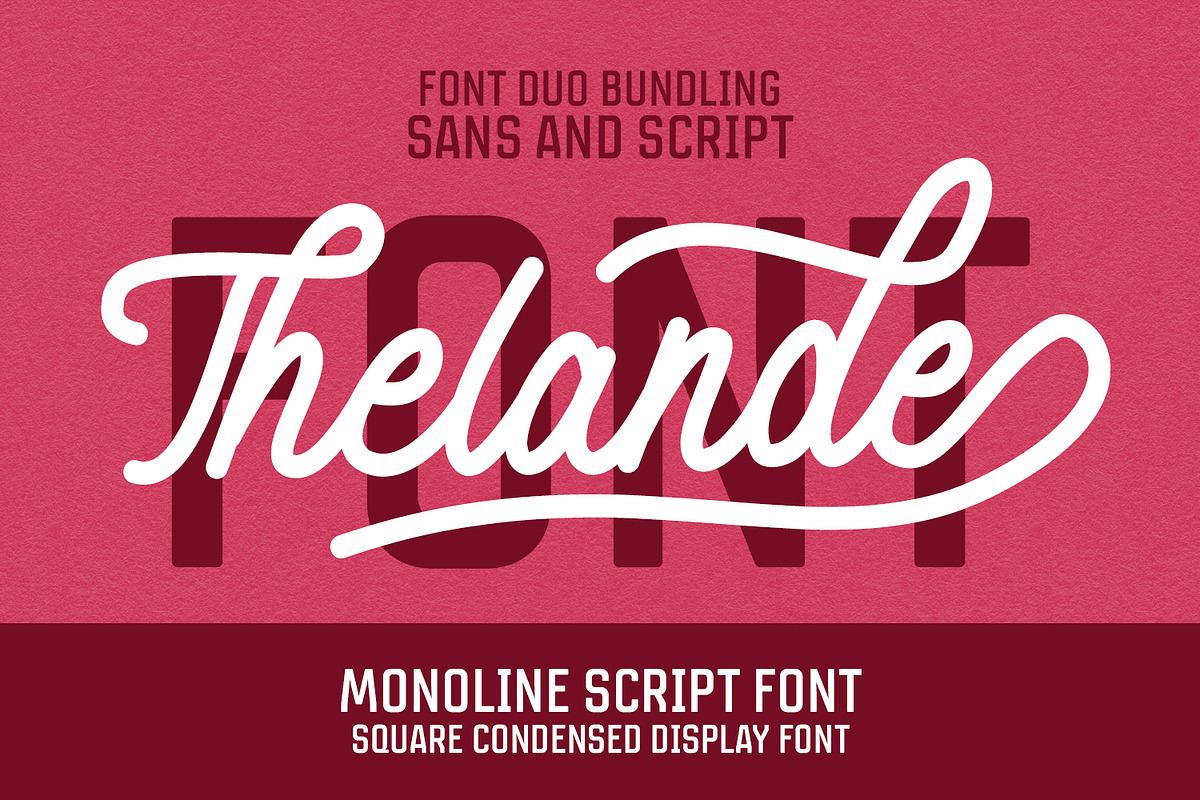
Thelande Script Vintage Free Sans Free Download
Thelande Script Vintage Free Sans Font Free Download
Thelande Script Vintage Free Sans Font Free Download is a beautifully crafted combination of a vintage-inspired script font and a clean sans-serif typeface. The script version brings a retro, hand-lettered feel, while the sans-serif version offers a more modern, minimalist approach. Together, they make a versatile font duo perfect for branding, logos, retro designs, posters, and invitations.
Using the Thelande Script Vintage Free Sans Font Free Download gives you the flexibility to pair elegant, flowing script with a sleek, modern sans serif for a well-balanced design. Whether you’re working on nostalgic branding or contemporary designs with a touch of vintage flair, this font duo adds style and readability to your project.